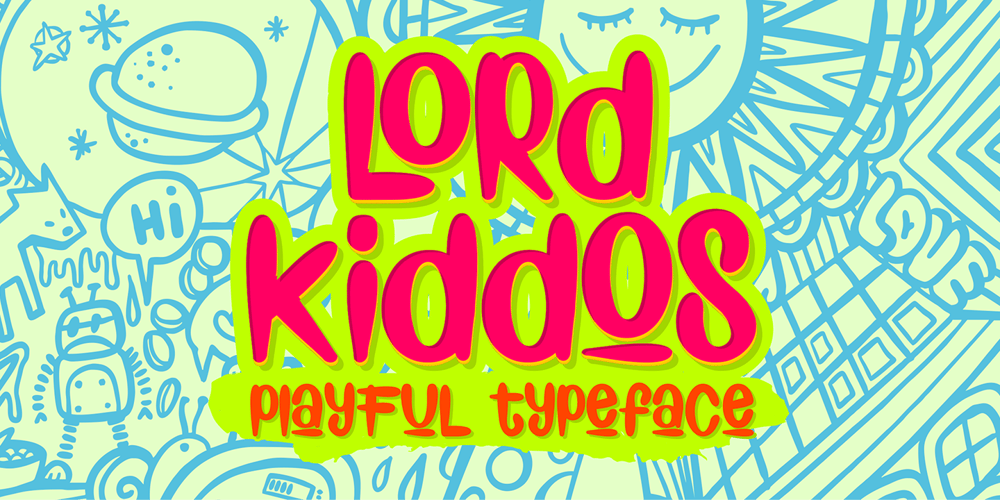
Lord Kiddos Font Family was designed by Raditya Putra Pratama and published by Raditya Type. Lord Kiddos contains 1 styles and family package options. Lord Kiddos font has a unique look.This cute font is best suited for use in the children’s world.Making it a book title or a children’s t-shirt design, must be very fun.Get creative with child like games, and use them to brighten up kids and school projects!